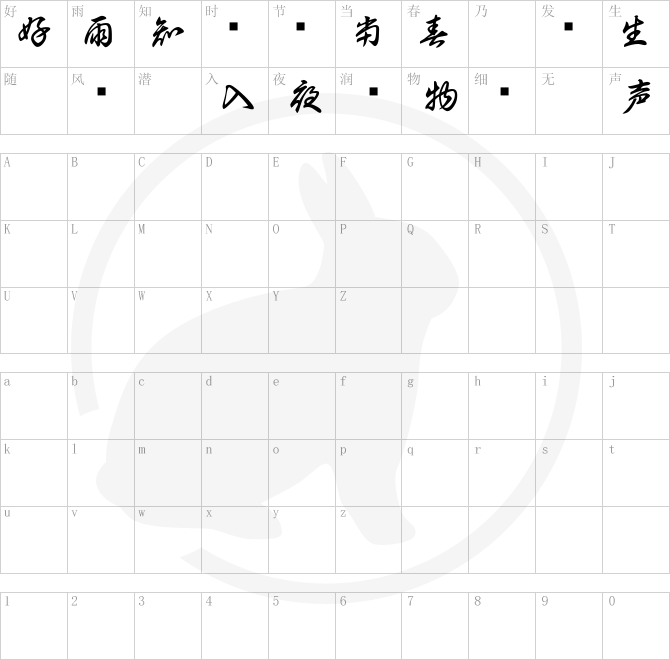
- Font Name:白舟草書教漢
HakusyuSousyo_kk.ttf is a very beautiful artistic font, HakusyuSousyo_kk.ttf is widely used in the design and printing of various books and pictures,HakusyuSousyo_kk.ttf has a strong visual impact,HakusyuSousyo_kk.ttf is a commonly used font in newspapers, magazines and books, and is used in posters, e-commerce Poster design, store design, logo design, font design and other fields.HakusyuSousyo_kk.